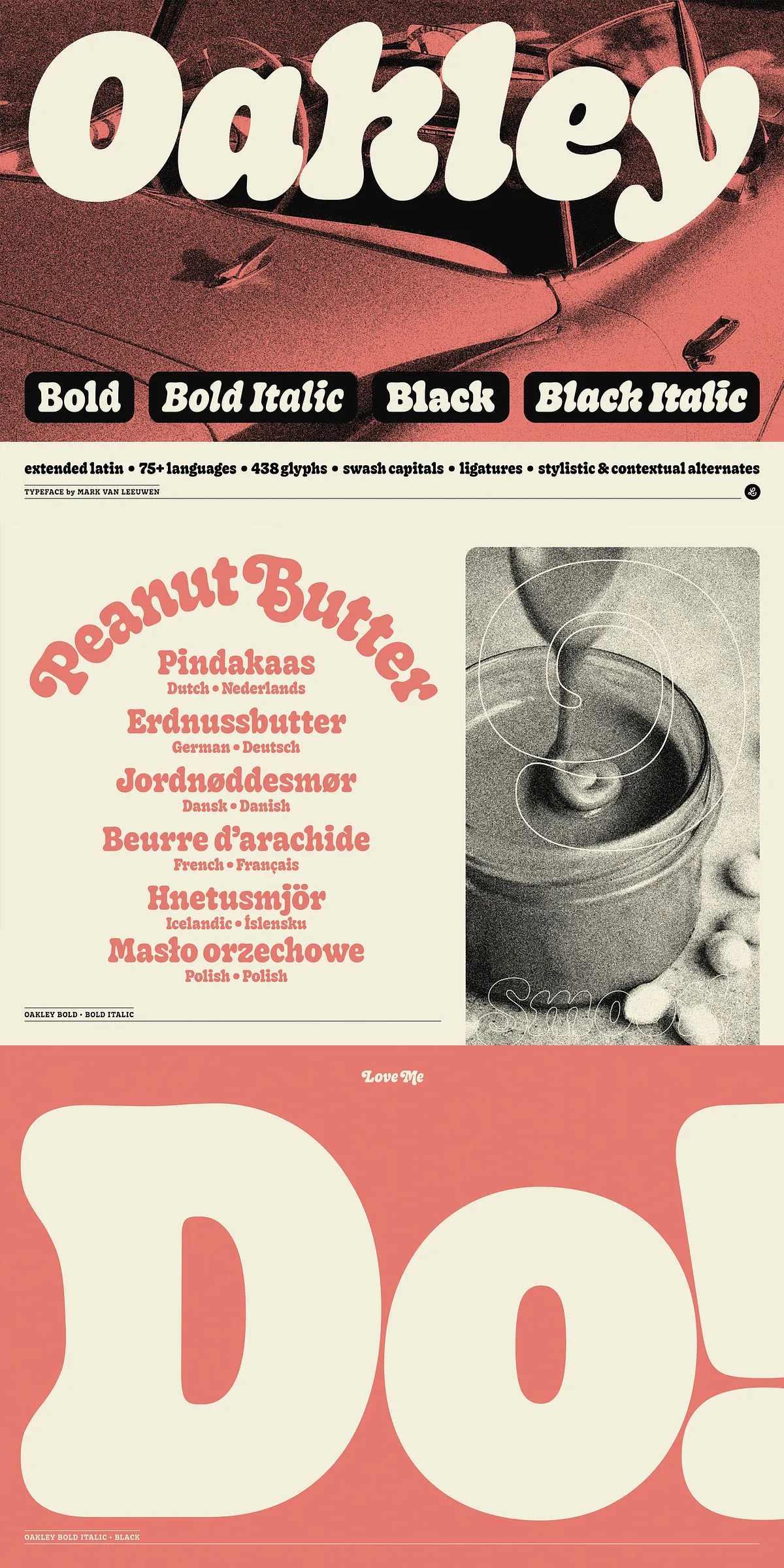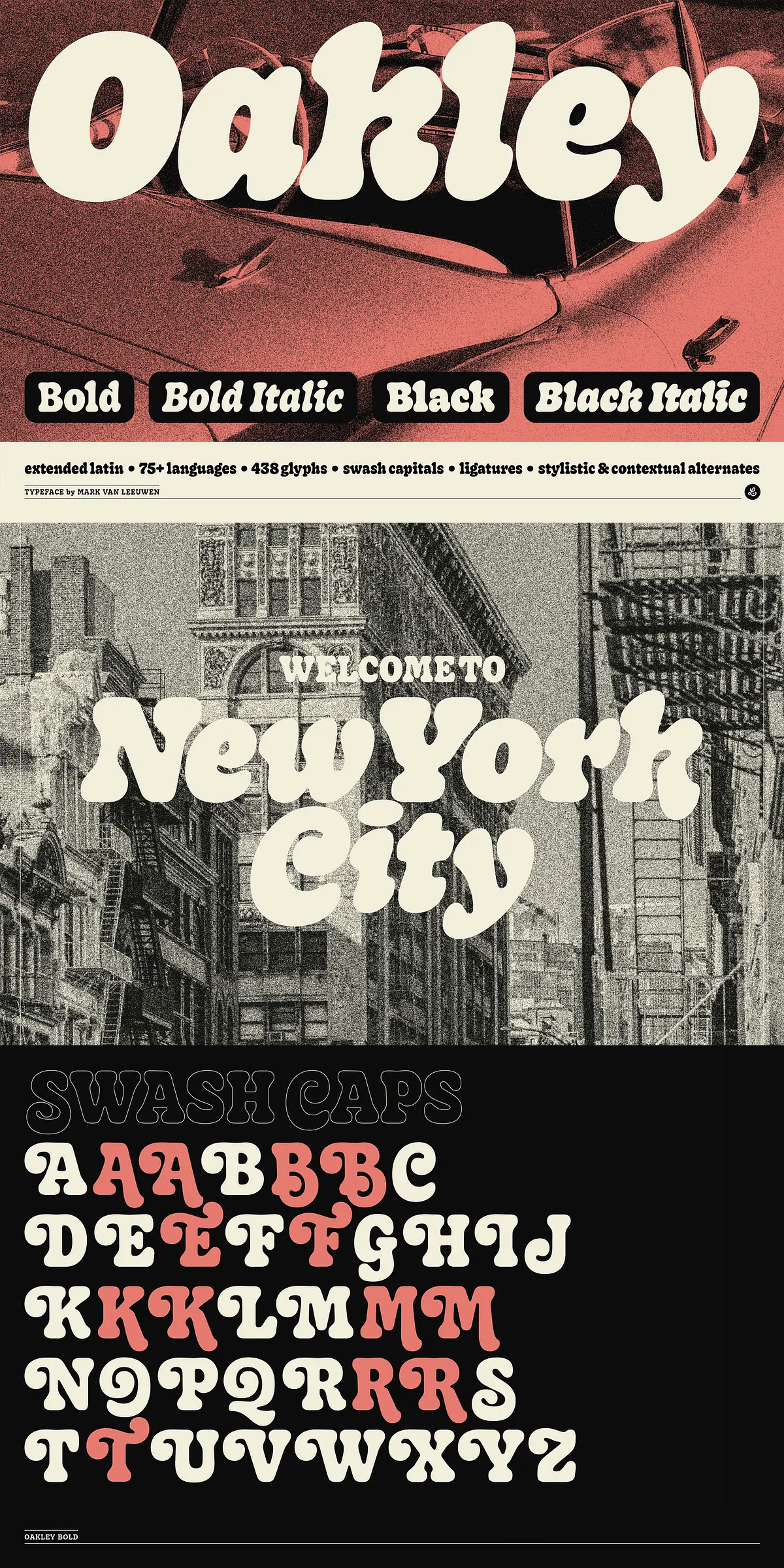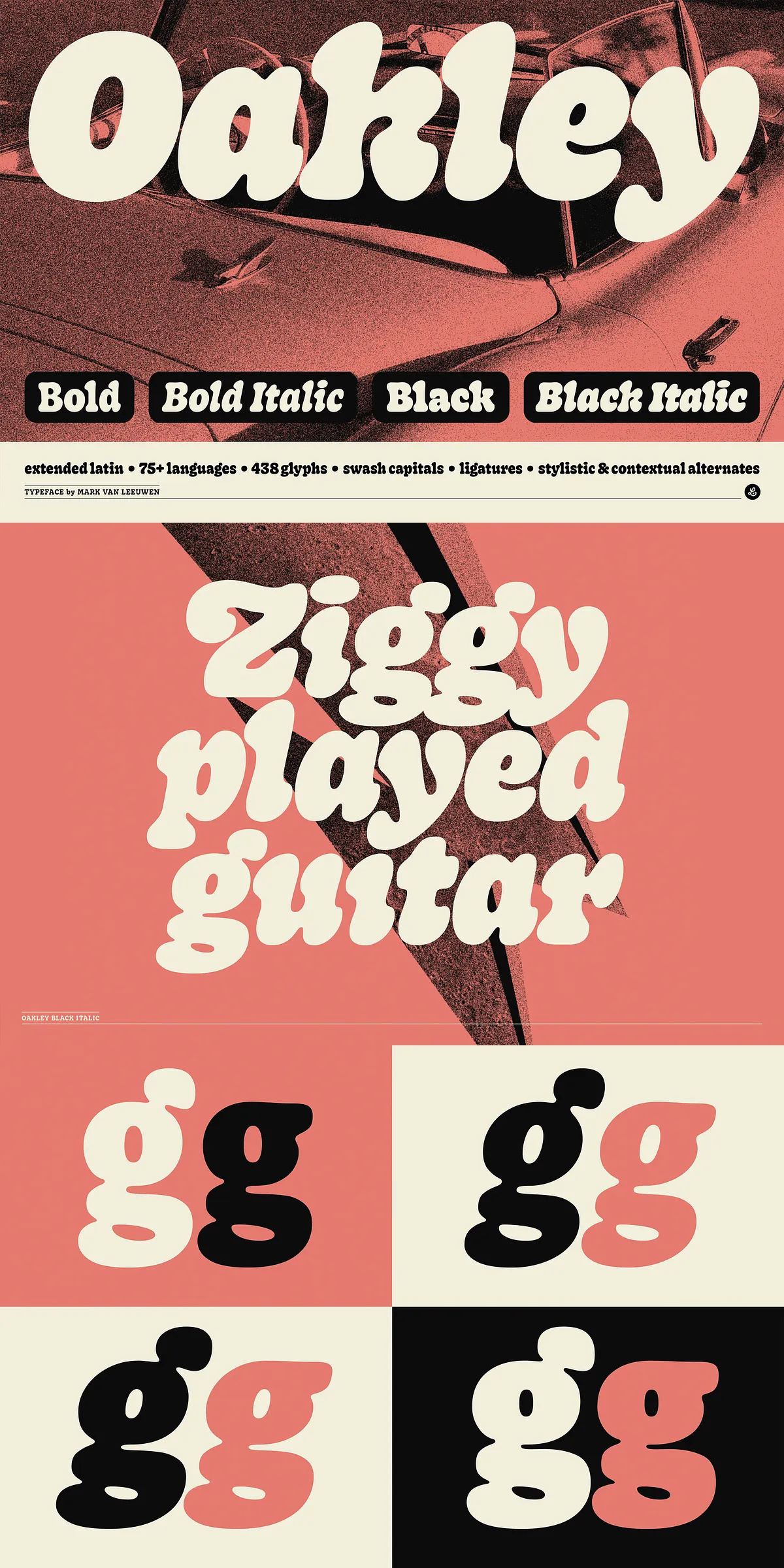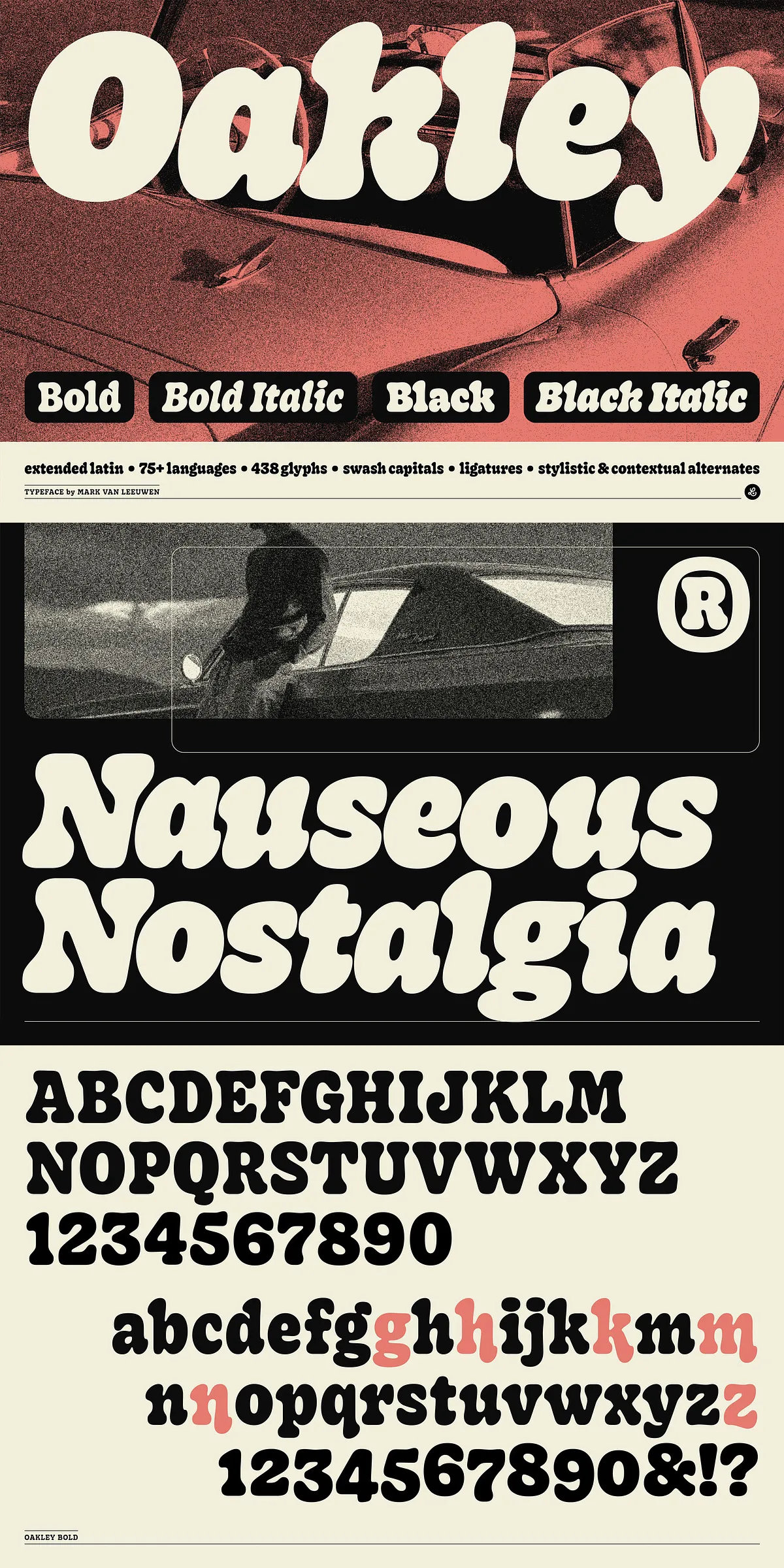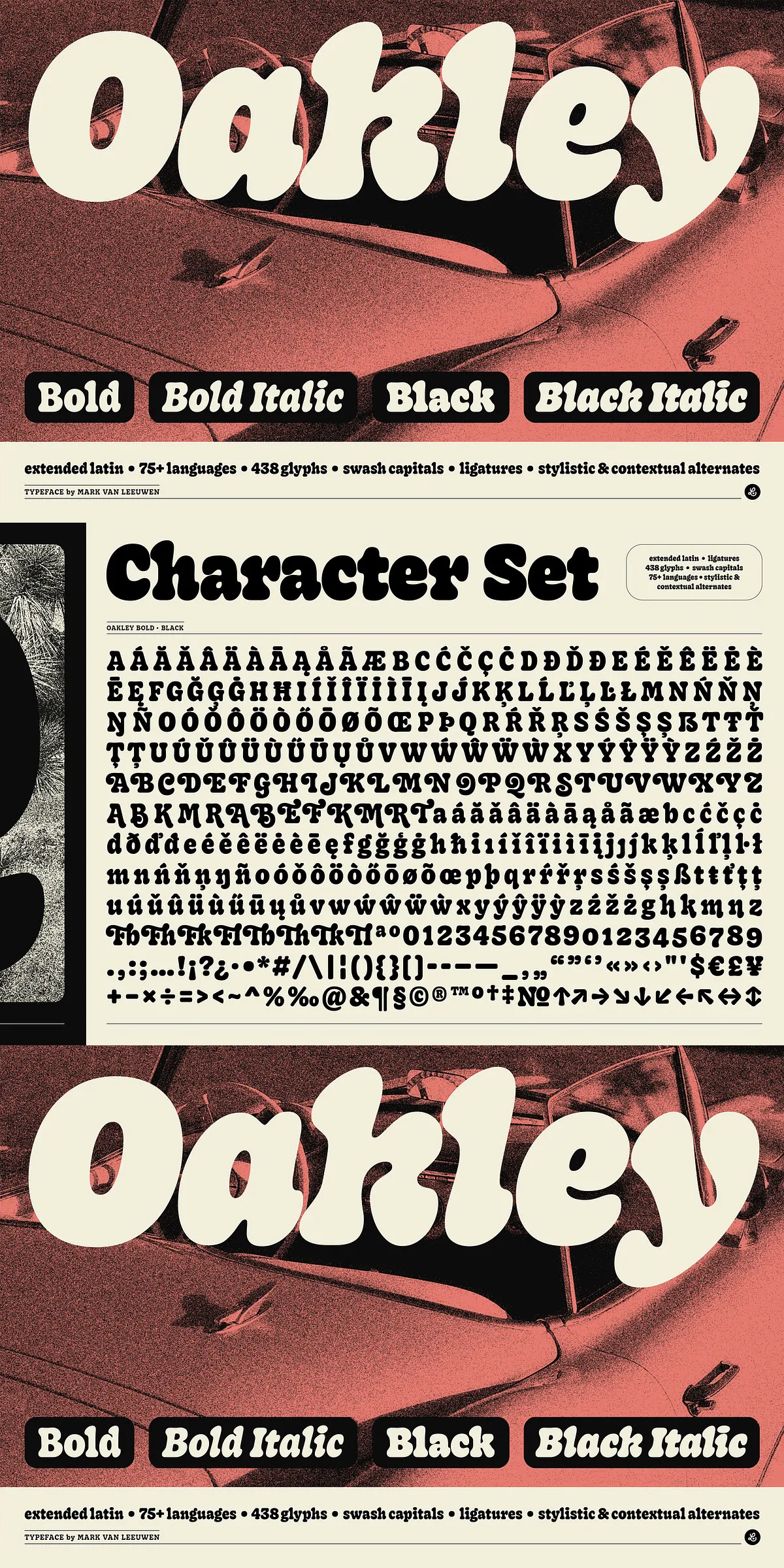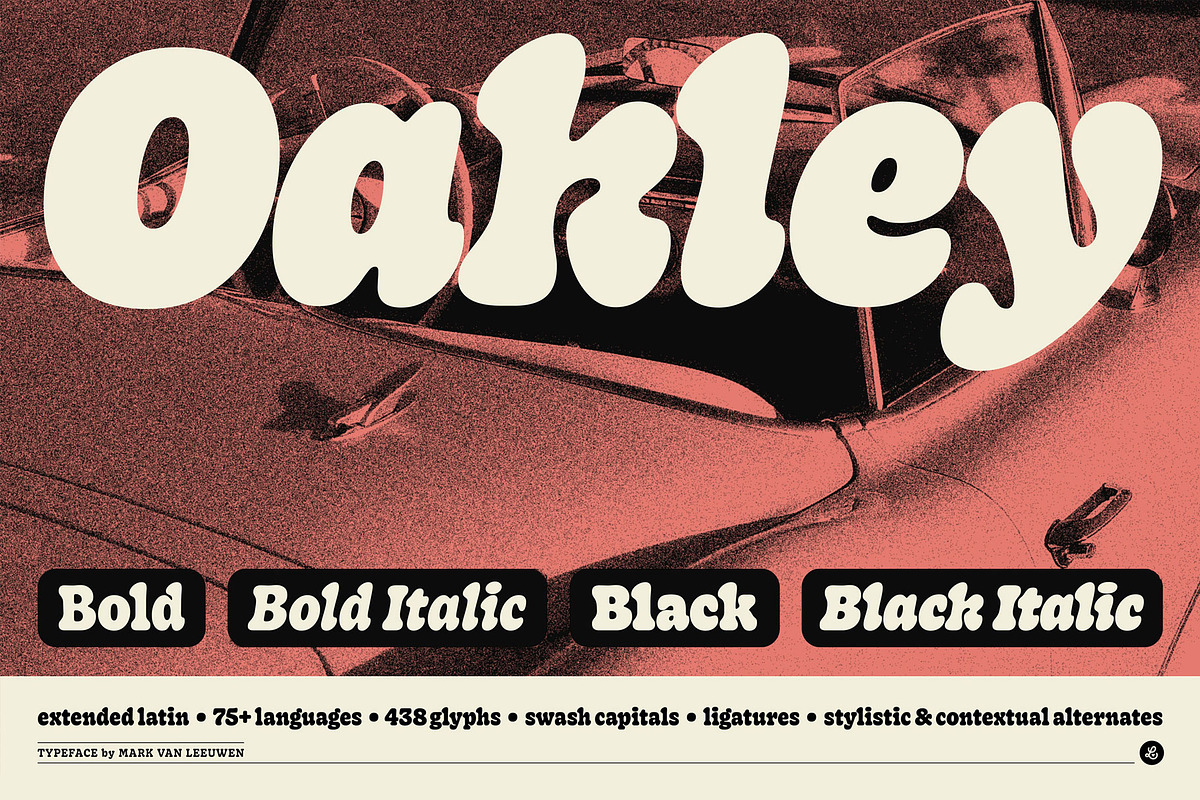
Step into a world where typography breathes nostalgia, elegance, and subtle rebellion—welcome to Oakley, a bold reimagining of the expressive, soft-shouldered serifs from the golden era of 1960s and 1970s design. This is not a mere copy of the past. Oakley honors its roots in classic Cooper-style typefaces, yet boldly evolves them with unconventional forms, dynamic proportions, and a soulful warmth that feels both timeless and refreshingly new.
Rooted in Retro, Reborn for Today
Oakley doesn’t just mimic vintage fonts—it resurrects their spirit with modern intent. The gentle, juicy serifs cascade down each stroke like ink spilled on textured paper, radiating warmth and emotion. The rounded terminals and softly swelling curves evoke the handcrafted quality of old typographic masters, while the slightly exaggerated x-height and organic spacing keep it legible and alive on any screen or print surface.
Born from a deep appreciation for the expressive typography of mid-century Europe and North America, Oakley is designed for creators who crave character. It’s the font that turns a simple title into a story, a brand name into an invitation.
Powerful Features for Professional Designers
Engineered for depth, versatility, and expressive freedom, Oakley delivers an exceptional set of typographic tools:
- 4 Font Weights: From delicate Bold to dramatic Black, each weight provides distinct visual impact—perfect for building hierarchical layouts in magazines, packaging, and digital interfaces.
- Bold & Black Italic Variants: The italic styles are uniquely dynamic—slender, elongated, and flowing with a confident flair, ideal for accentuating quotes, titles, and narrative elements.
- Extended Latin Character Set: With support for over 75 languages—including French, German, Spanish, Portuguese, Scandinavian, and Central/Eastern European variants—Oakley ensures global usability, making it ideal for international branding and multilingual content.
- Discretionary & Standard Ligatures: Seamlessly connect letters like fi, fl, ffi, and ct, adding a refined, hand-tuned polish to your text.
- Swash Capitals: Elevate your headlines with ornamental upper-case letters that cascade with grace—perfect for logos, invitations, and editorial headlines.
- Contextual & Stylistic Alternates: Automatically or manually activate alternate forms to add variety and personality to your text—no two layouts will look exactly the same.
- Oldstyle Figures: Replace modern, even numerals with classic, humanist numbers that descend and ascend for a more organic, vintage rhythm.
- Punctuation & Symbols: Full range of typographic support, including em dashes, en dashes, ellipses, fractions, and special symbols.
- 438 Glyphs: A rich, detailed character set ensures that every typographic nuance is within reach.
Use Oakley to Tell Your Story
Oakley isn’t just a font—it’s your creative partner. Use it where emotion, elegance, and authenticity matter:
- Branding & Logos: Create identities that feel personal, thoughtful, and enduring. Perfect for boutique fashion, artisanal products, and cultural institutions.
- Editorial & Magazine Design: Elevate feature articles, book covers, and poetry layouts with a font that feels intimate yet refined.
- Digital Media & Web Content: Use with care in web design—its softness shines in headings and quotes, adding depth and human warmth to digital narratives.
- Wedding Invitations & Stationery: Offer a vintage-chic elegance that speaks of love, tradition, and timeless romance.
- Art Books & Limited Edition Prints: Match the font’s soulful nature with rich, tactile design and thoughtful composition.
Let Oakley be the voice of your next big idea. Let it carry the weight of memory, the light of inspiration, and the warmth of a well-told story.